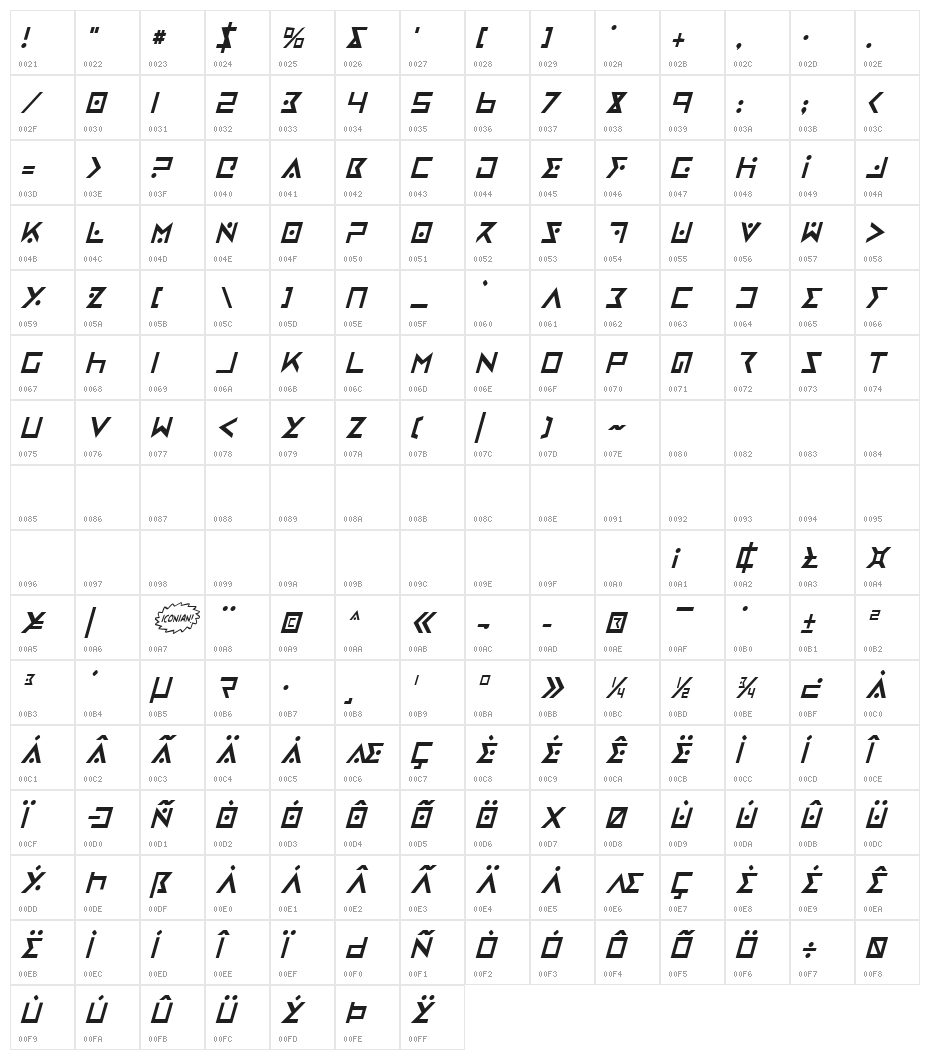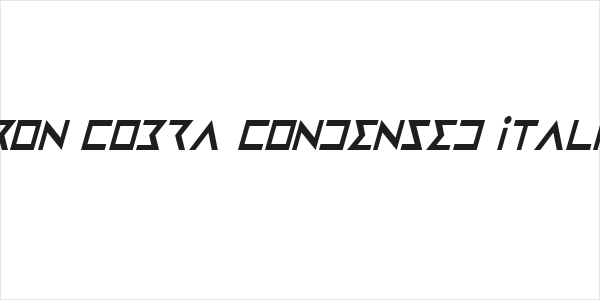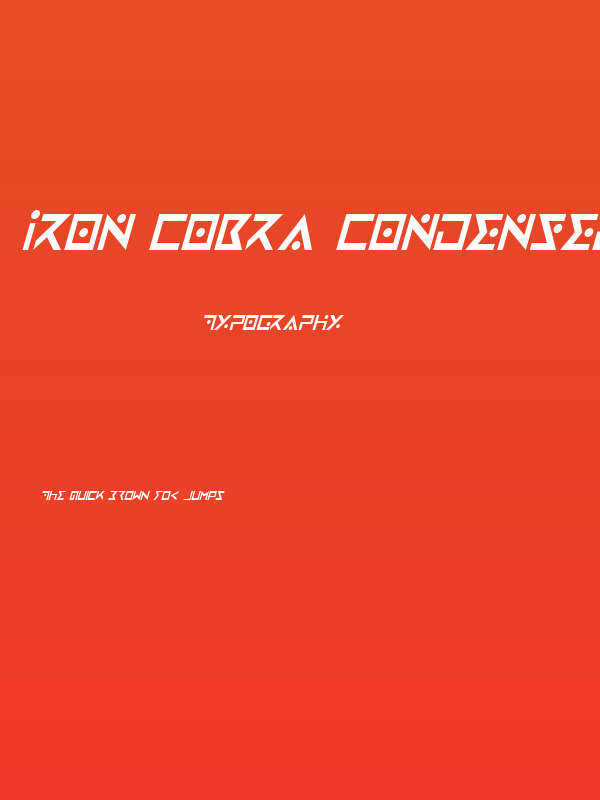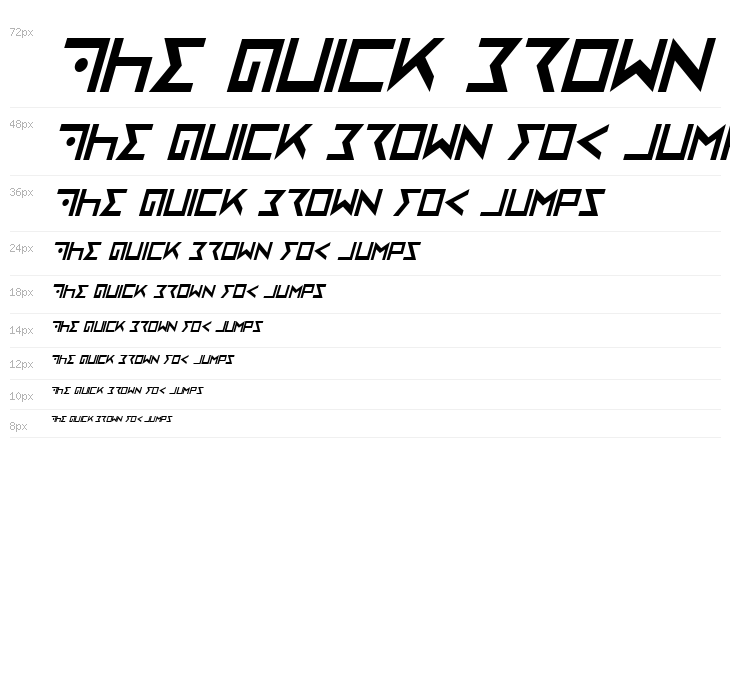
Iron Cobra Condensed Italic Font
Iron Cobra Condensed Italic Description
This font features a bold, geometric design with sharp angles and a futuristic aesthetic. The characters are condensed and italicized, giving them a dynamic and forward-leaning appearance. The use of angular shapes and unique cutouts within the letters adds a distinctive, edgy feel. The font maintains a consistent stroke width throughout, contributing to its modern and sleek style. It includes a full set of uppercase and lowercase letters, numbers, and a variety of special characters, making it versatile for various design needs.
| Proposed Projects | Ideal for sci-fi themed projects, video game titles, tech branding, and modern posters. |